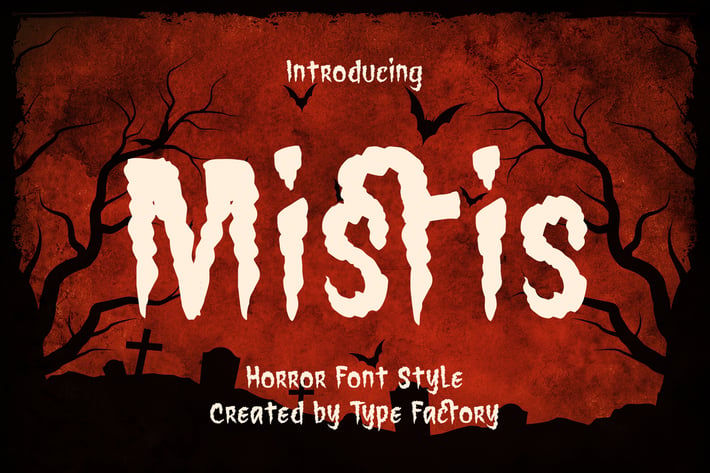
Mistis - Horror Font Style
Mistis is an fun, scary, and amazing horror font style.
It will add a unique and stunning look to your designs.
It is perfect for fun scary games, children horror story book, logos, branding, advertising, Halloween projects, gothic designs, apparel, tattoos, and more!